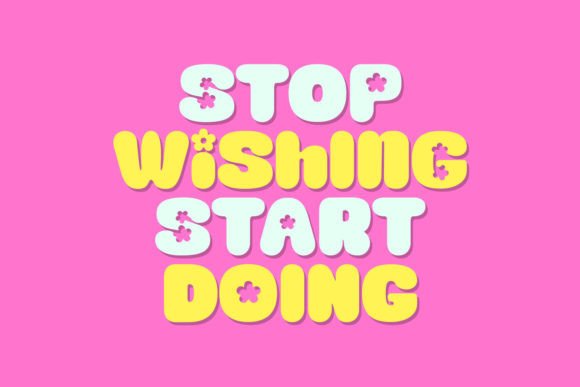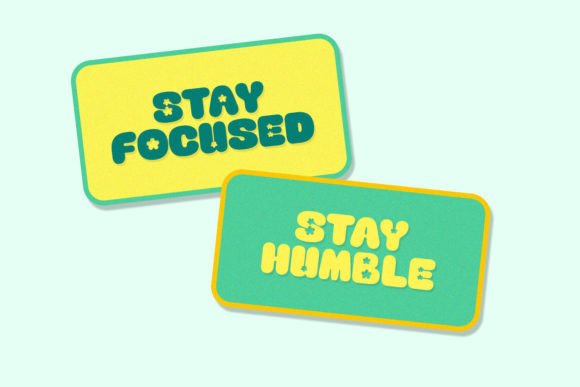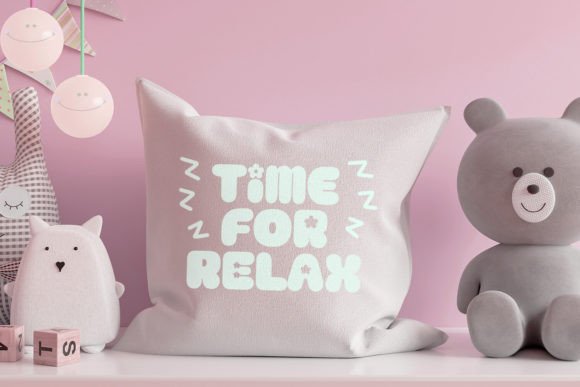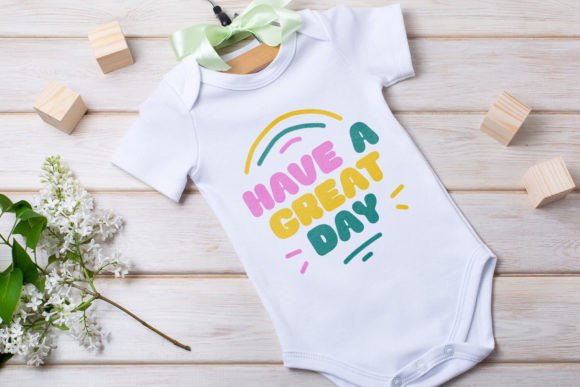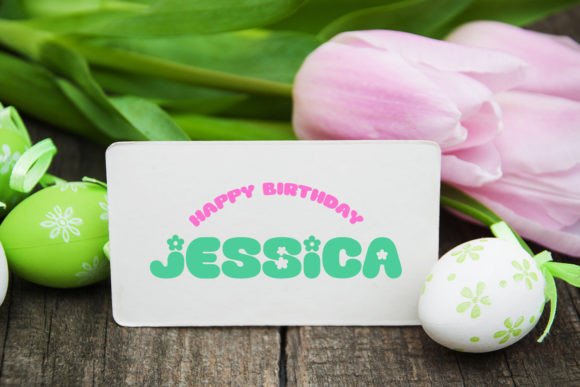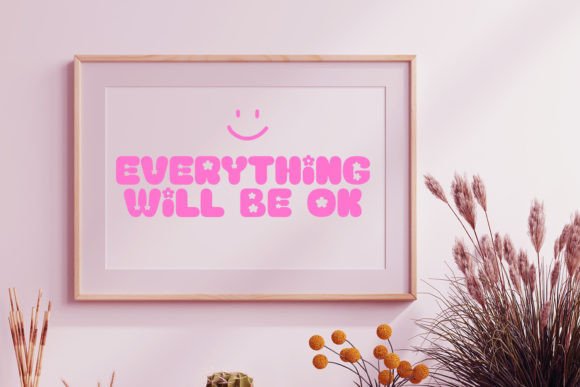
Introduction to Roles Boys Font
Roles Boys is a lively display font crafted uppercases, showcasing a playful style.
The rounded shapes give it a soft and friendly appearance Roles Boys combines boldness with a sense of whimsy, ensuring your designs stand out with both impact and charm.
Key Features of Roles Boys Font